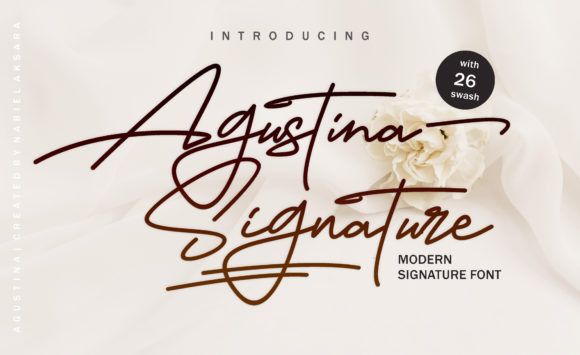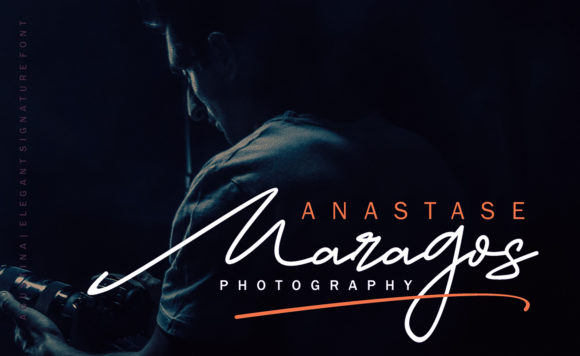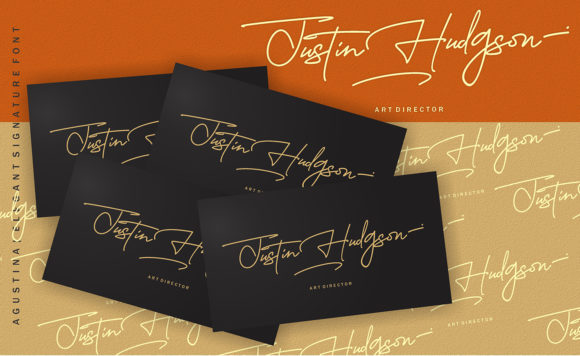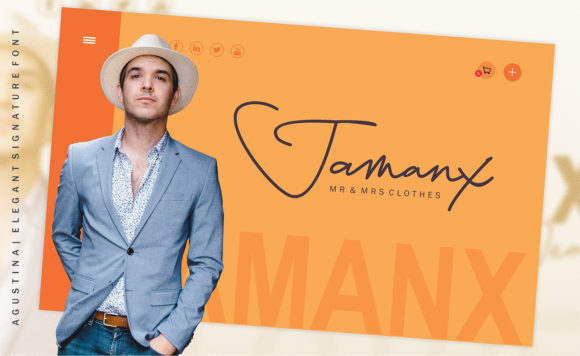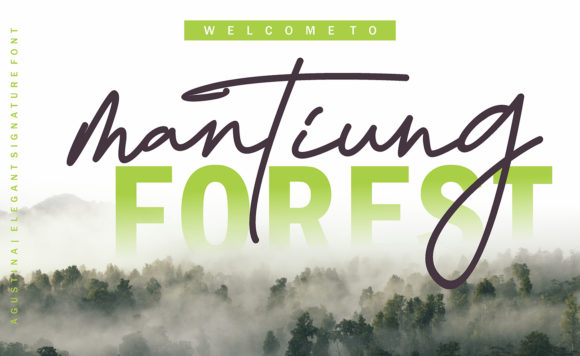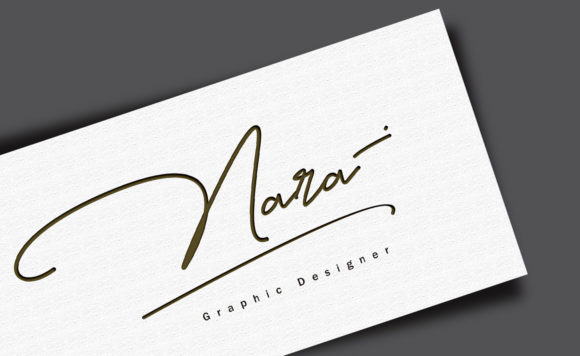
Agustina Signature Font
About Agustina Signature Font
Agustina Signature is a charming handwritten font featuring flowing curves. It will add a romantic touch to any crafting project!